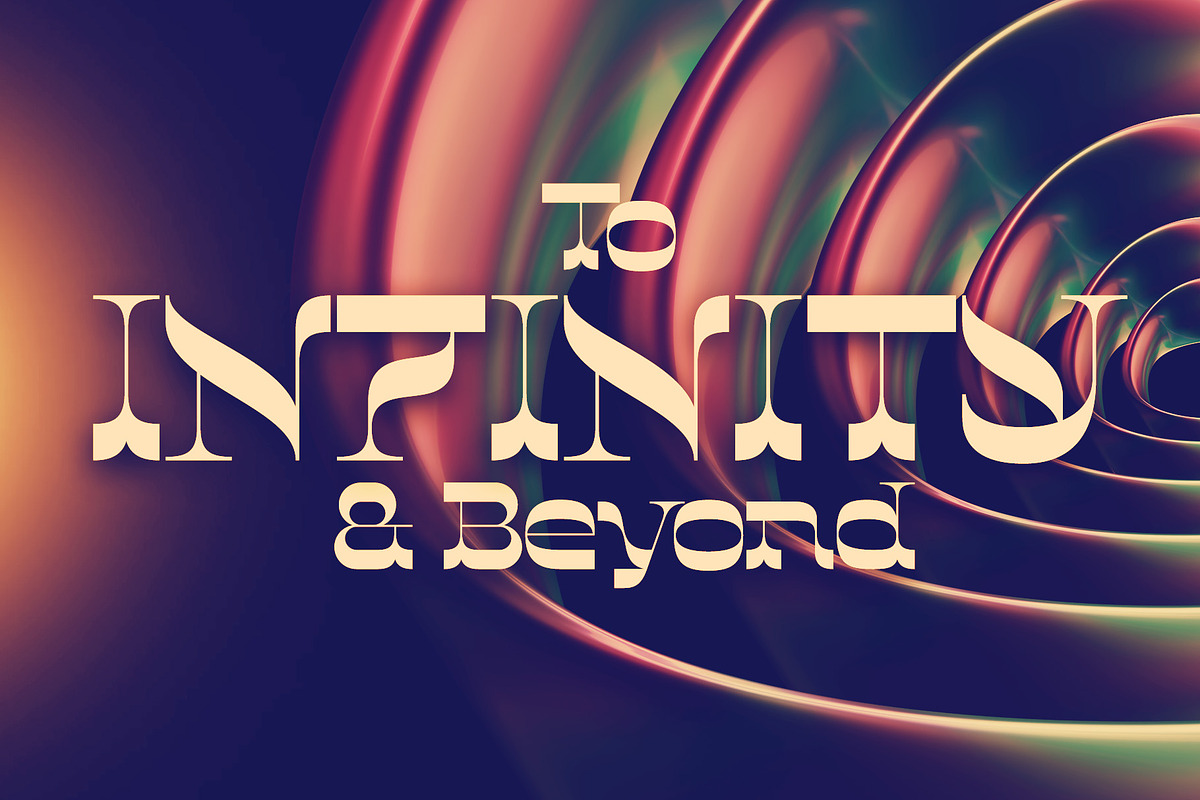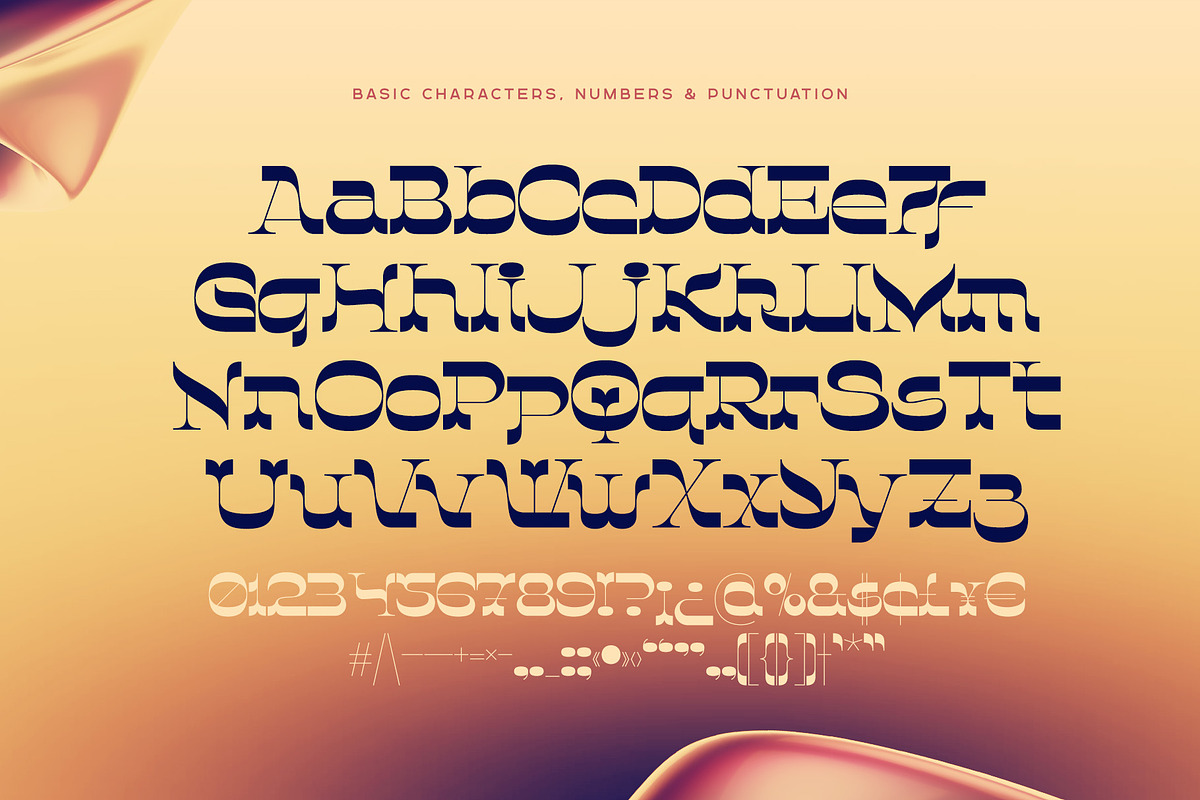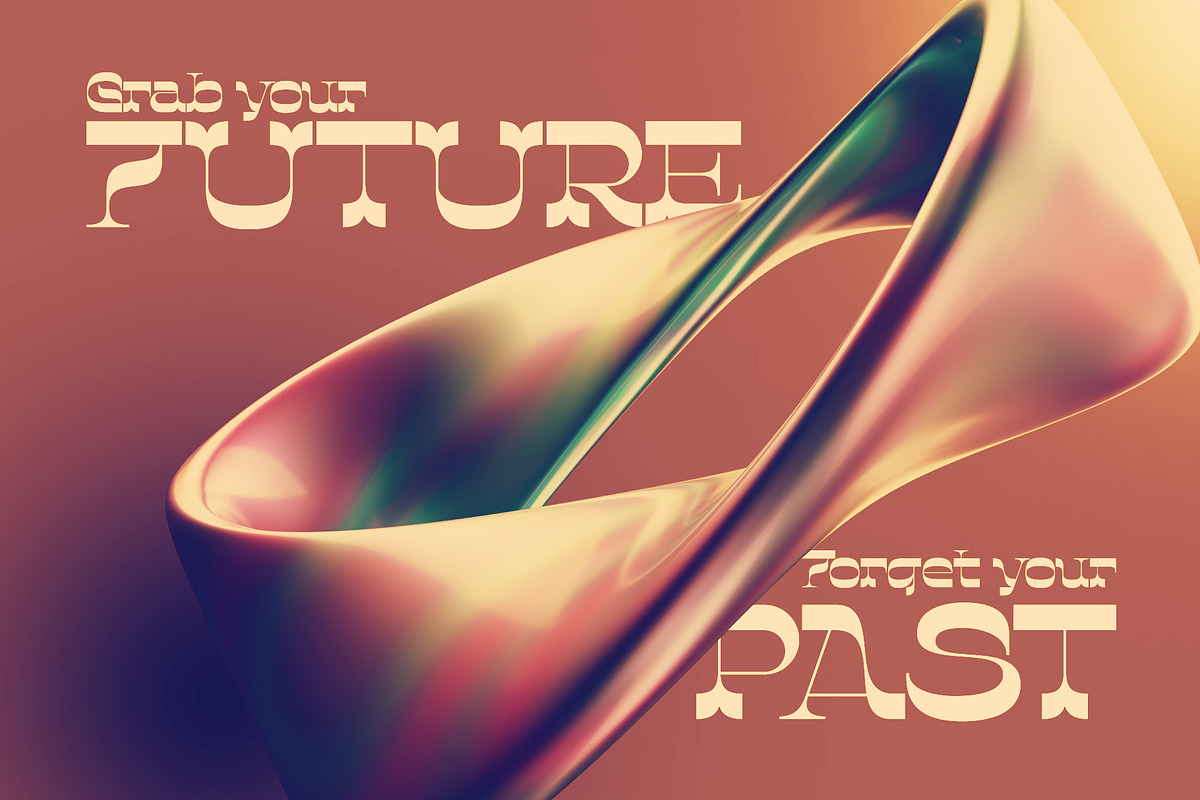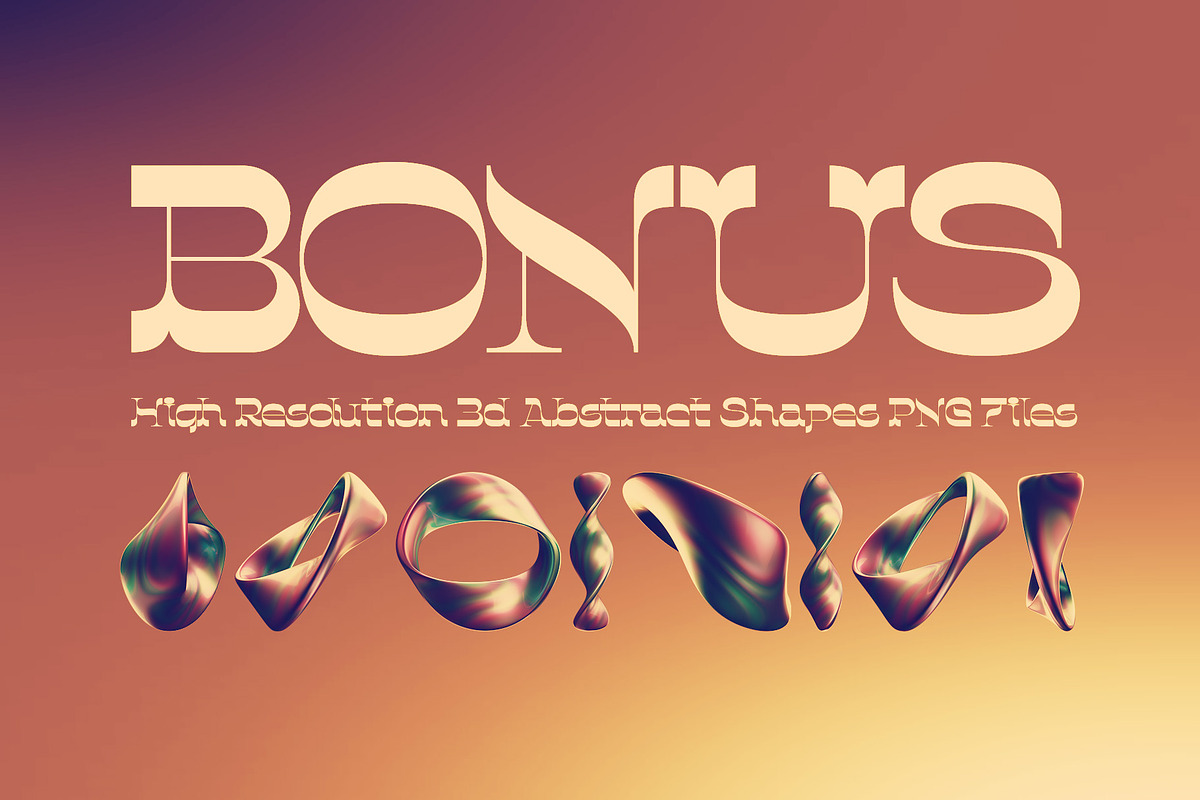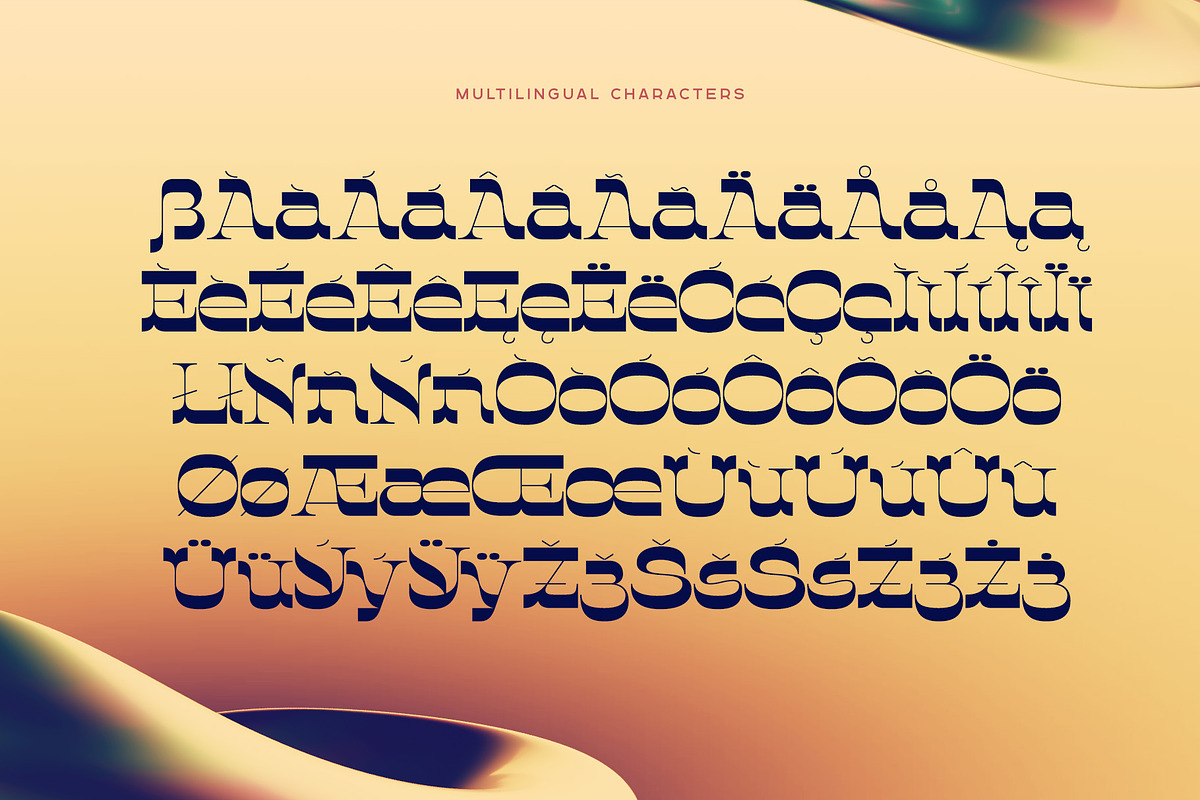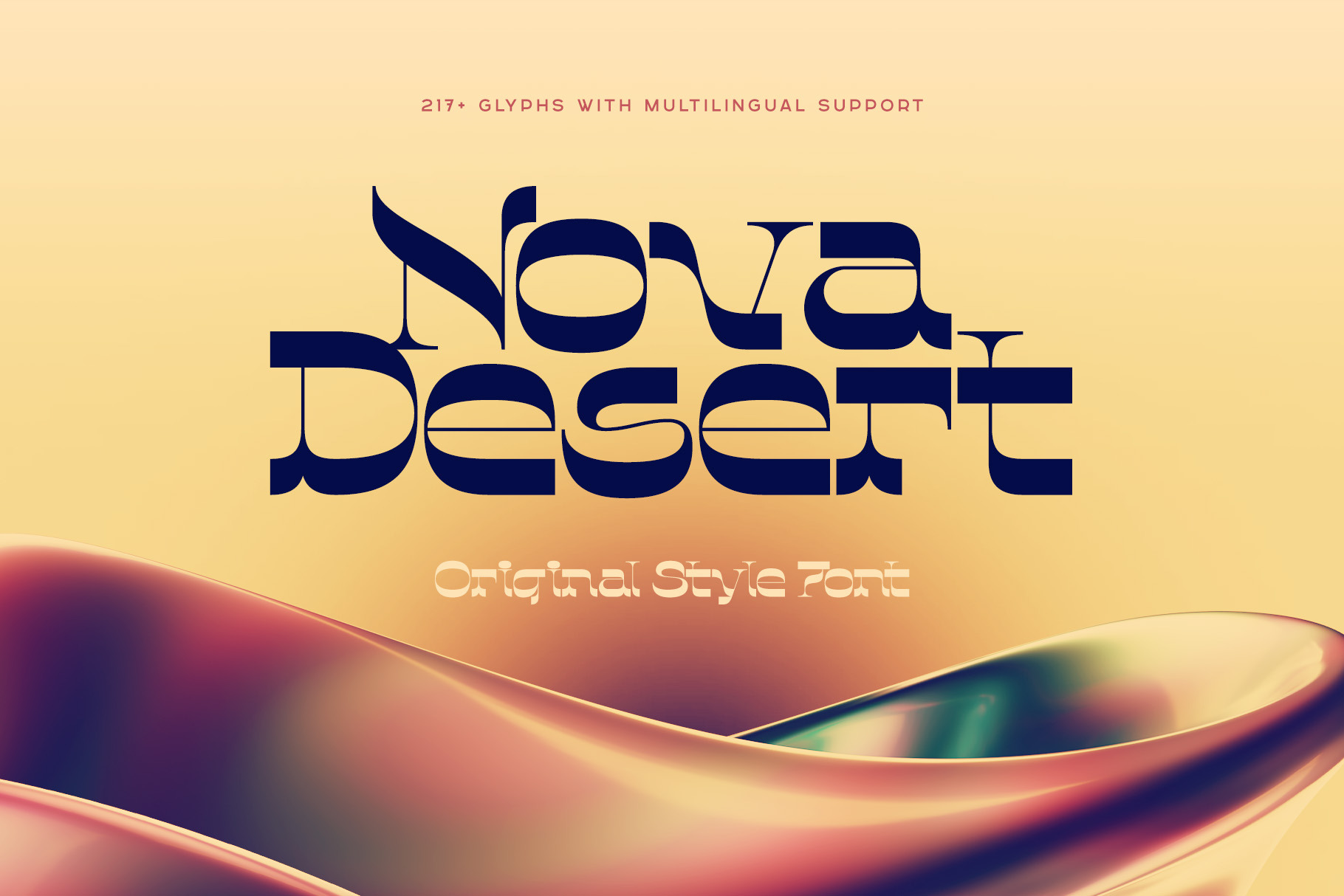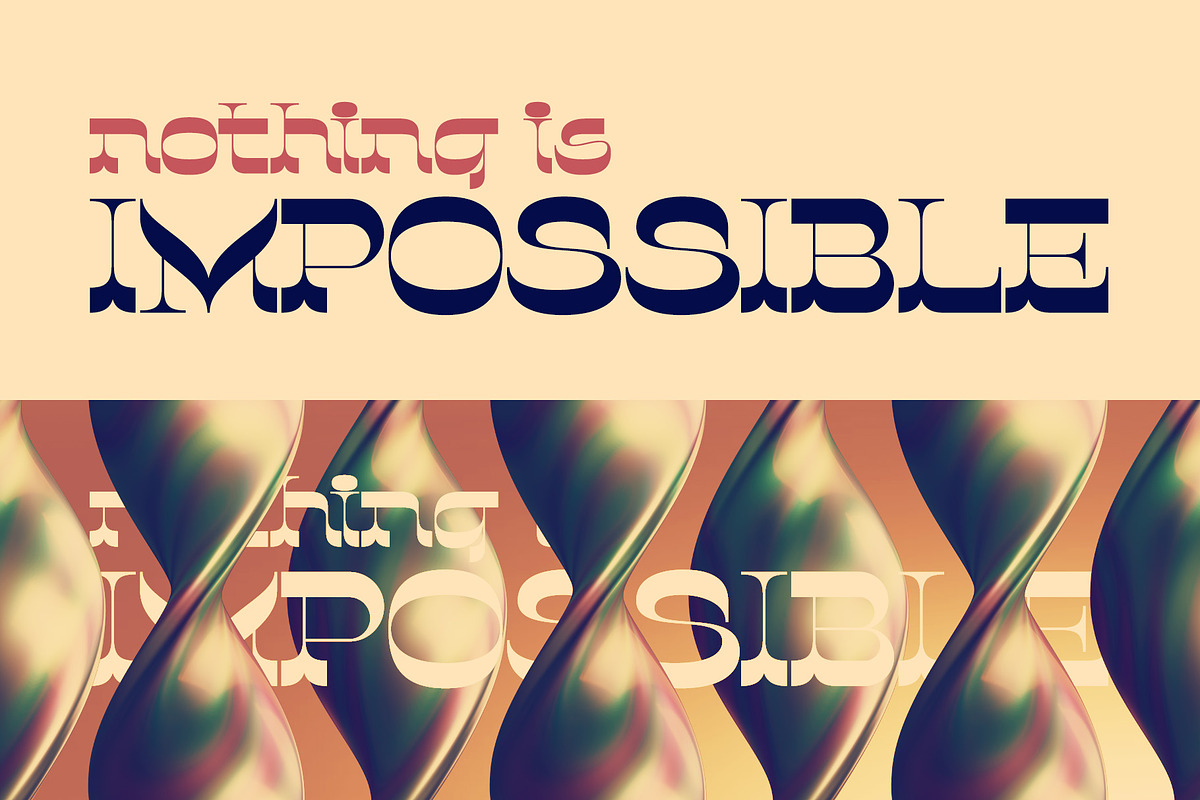
Nova Desert — Original Style font
Hello! Presenting an unusual font — Nova Desert. This typeface has an elegant combination of slab & serif shape with calligraphic notes. Nova Desert font has multilingual support (check out a screenshot with available characters).